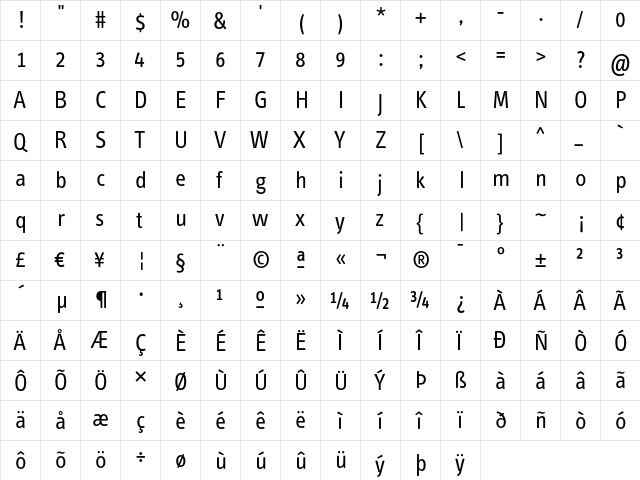
InfoTextRegularTf Roman
Design Context for InfoTextRegularTf Typeface
InfoTextRegularTf offers clean, dependable letterforms without strong stylistic allegiance, making it a practical choice for designers who need flexibility.
Pro Tip: Use InfoTextRegularTf in both headline and body roles to test its range before committing to a single application.